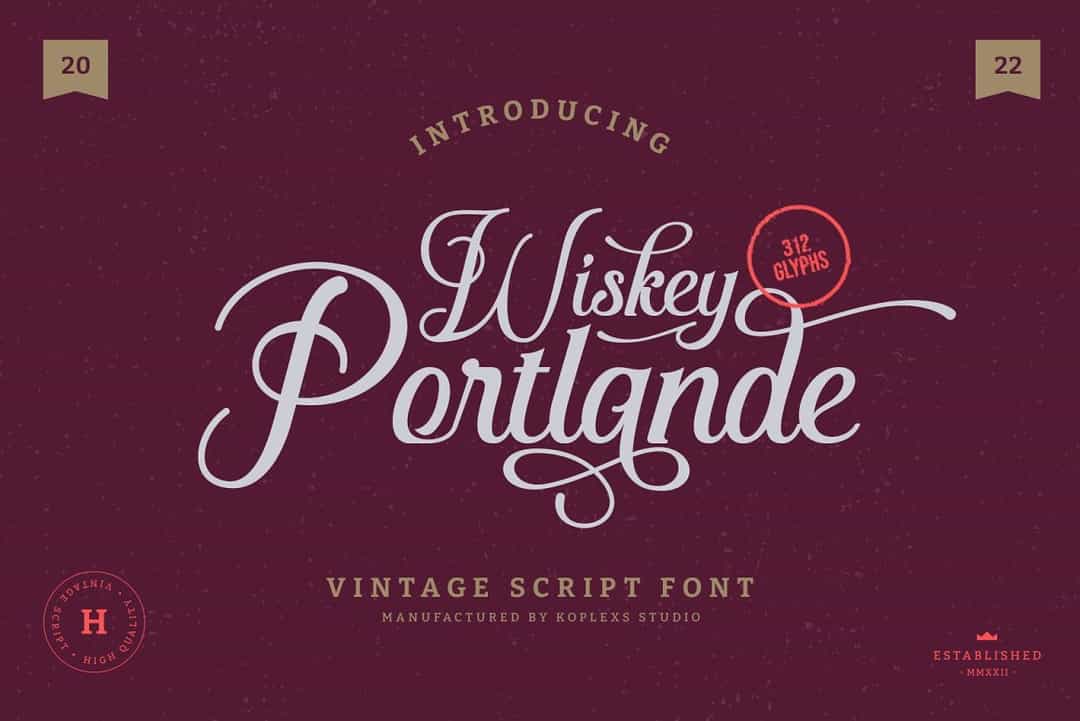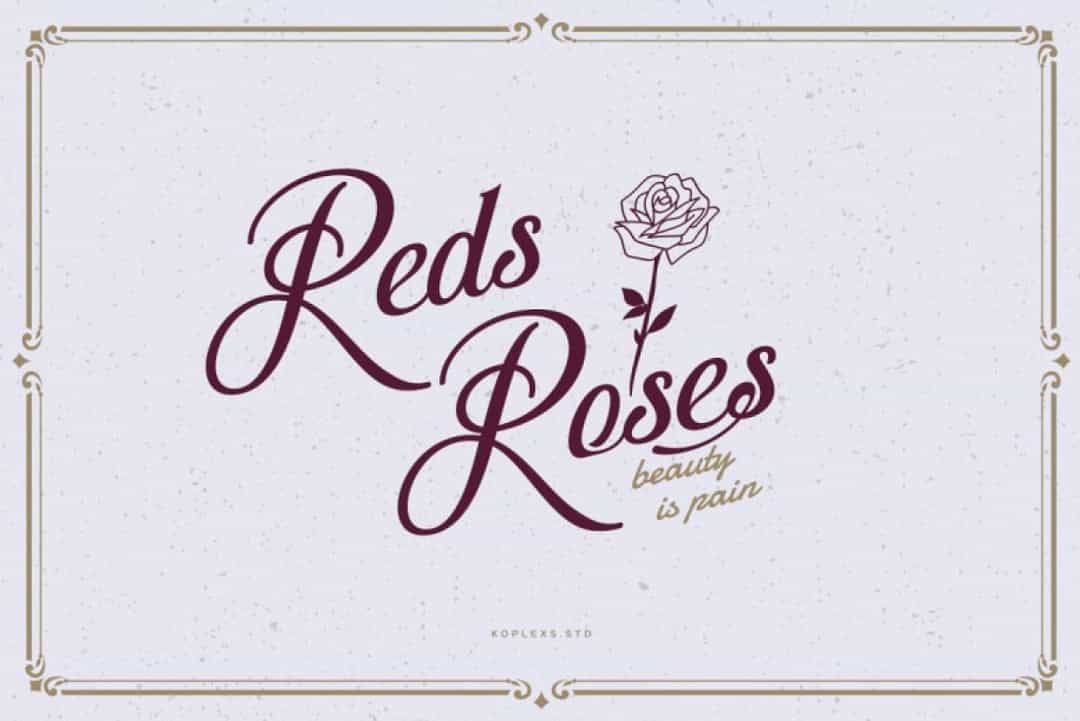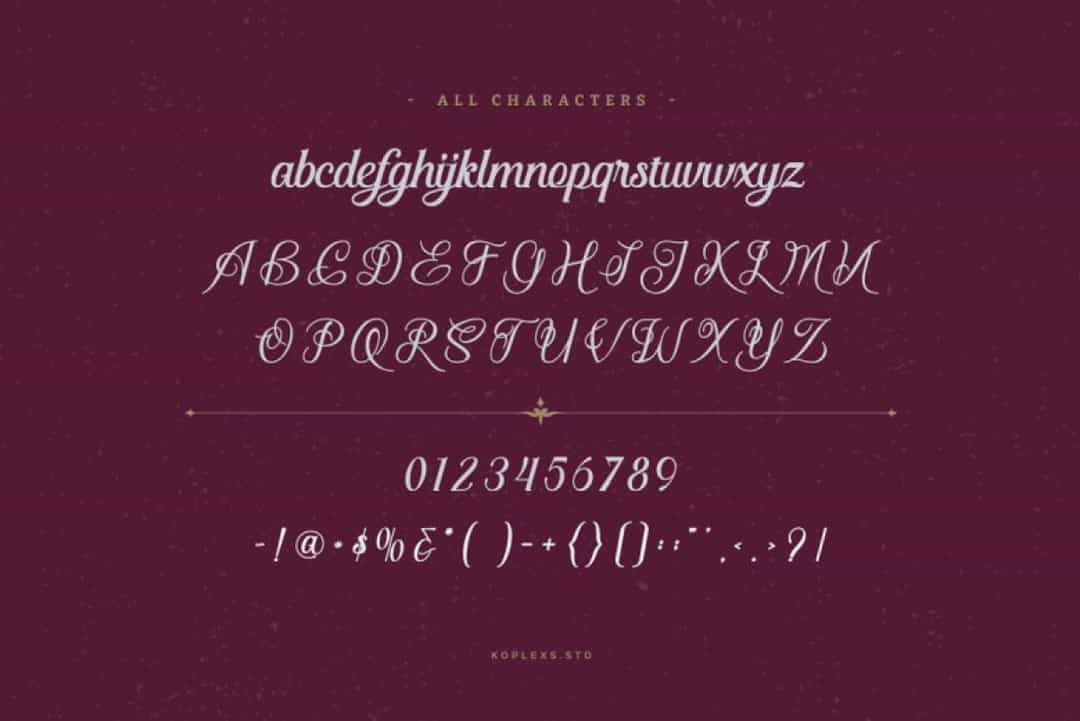
Wiskey Portlande is a vintage script font created through handwriting with calligraphic influences from the past that first made an appearance in the 1980s. This typeface is simple yet efficient. Additionally, I added some options that further improve it as display fonts with multiple functions for use within designs and logos alike; adding depth to them by providing multiple options to choose from can add professional look while giving an impactful style look that gives Wiskey Portlande it’s refined and luxurious feel.